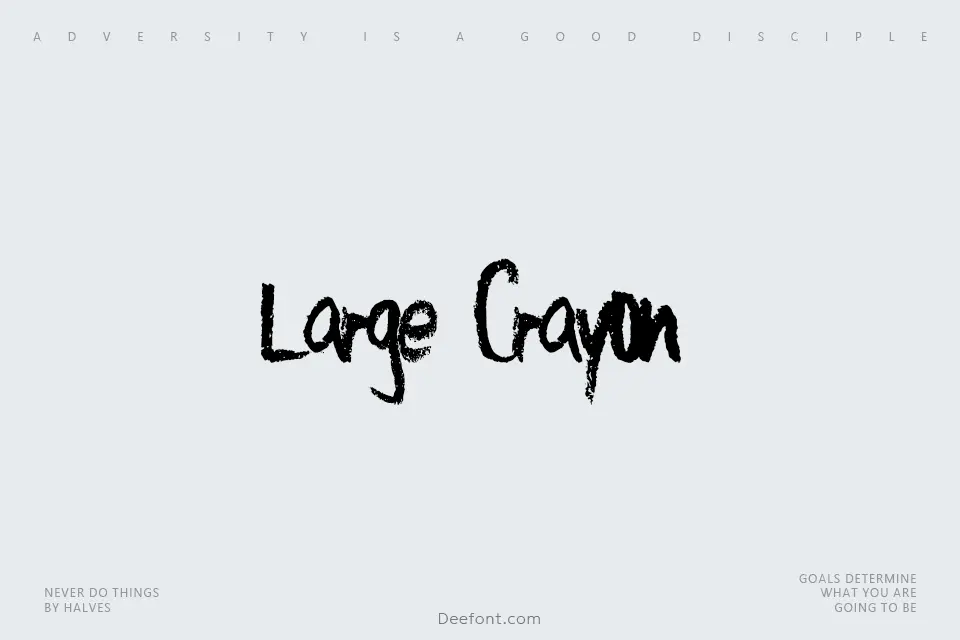
Large Crayon Font
Large Crayon is a charming handwritten script typeface inspired by crayon drawings, featuring thick, expressive brush strokes and organic letter forms that radiate childhood innocence and playfulness. The font's bold, sketch-like quality makes it exceptionally effective for children's designs, party invitations, and creative projects requiring a casual, approachable aesthetic. Its chunky letterforms and natural imperfections capture the authentic feel of hand-drawn typography, making it ideal for posters, greeting cards, social media graphics, packaging, and display applications that demand visual warmth and youthful energy.